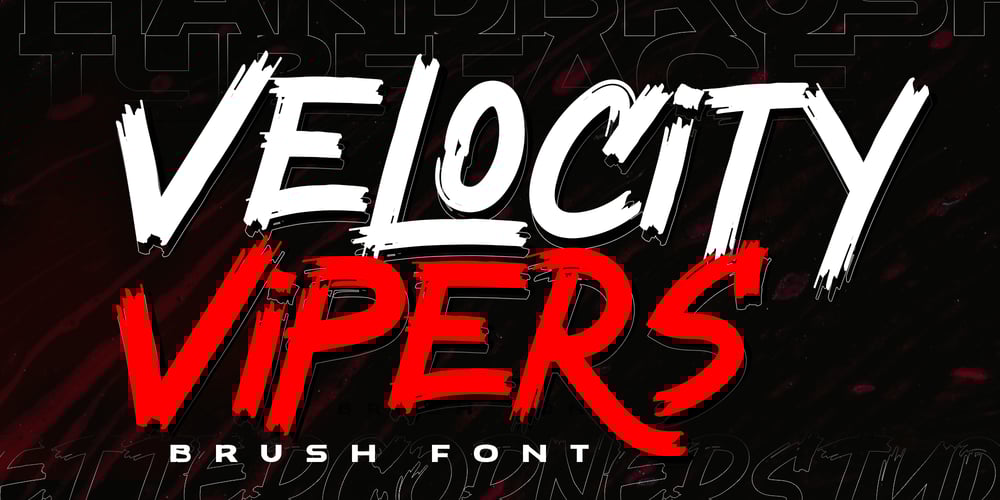
Velocity Vipers Font Family was designed by Muhammad Afif Ersya and published by Mevstory Studio. Velocity Vipers contains 1 styles and family package options. Velocity Vipers Brush Font, a modern and stylish font style influenced by urban style and branded goods that can be used in a wide variety of ways by Lettercorner StudioVelocity Vipers font is ideal for branding, photo overlays, watermark, typography, greeting cards, posters, business card, branding projects, social media posts, magazines, book covers, invitations, weddings, photography, fashion, apparel, letter, stationery, or any tasks that need a signature taste.